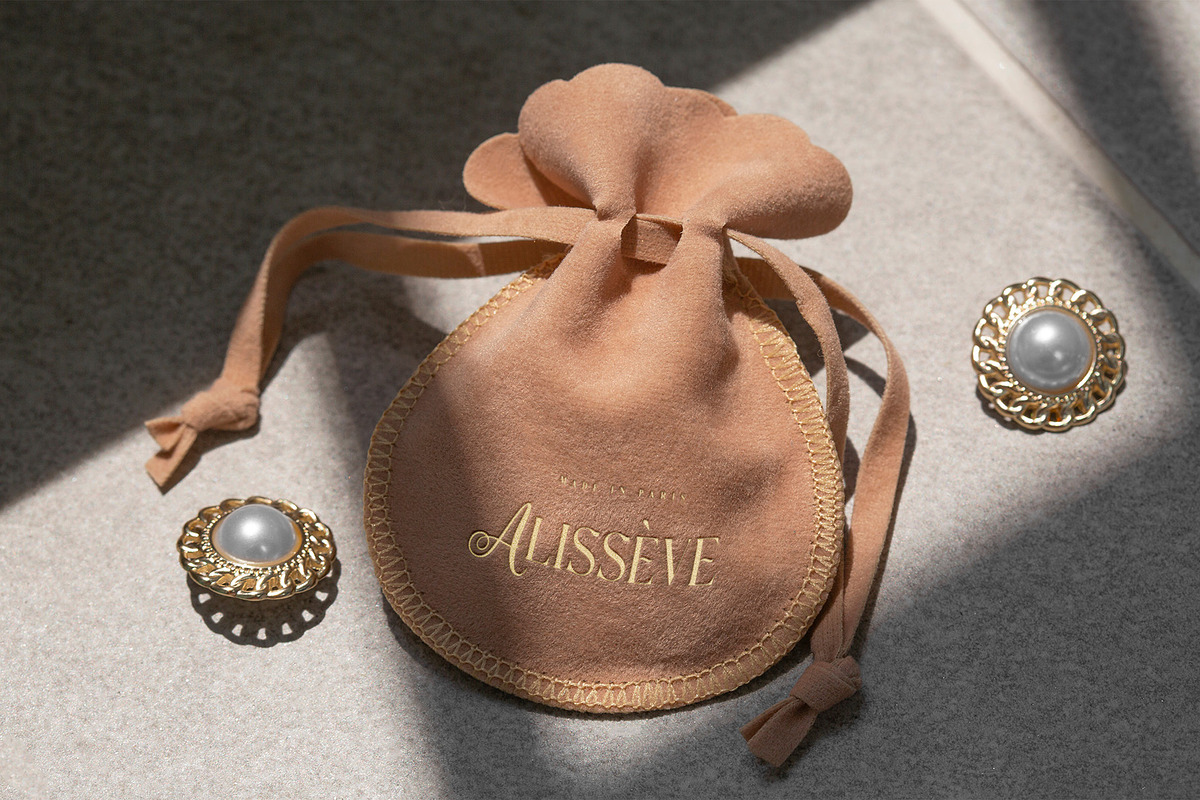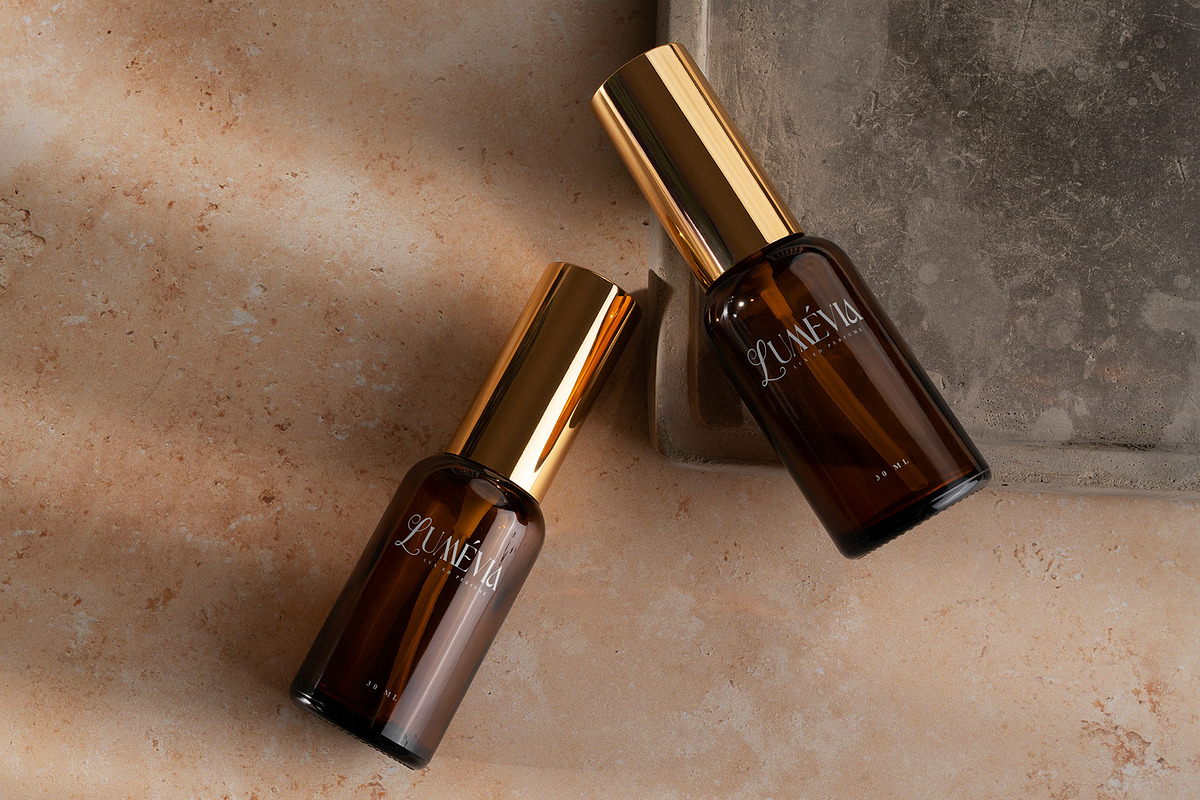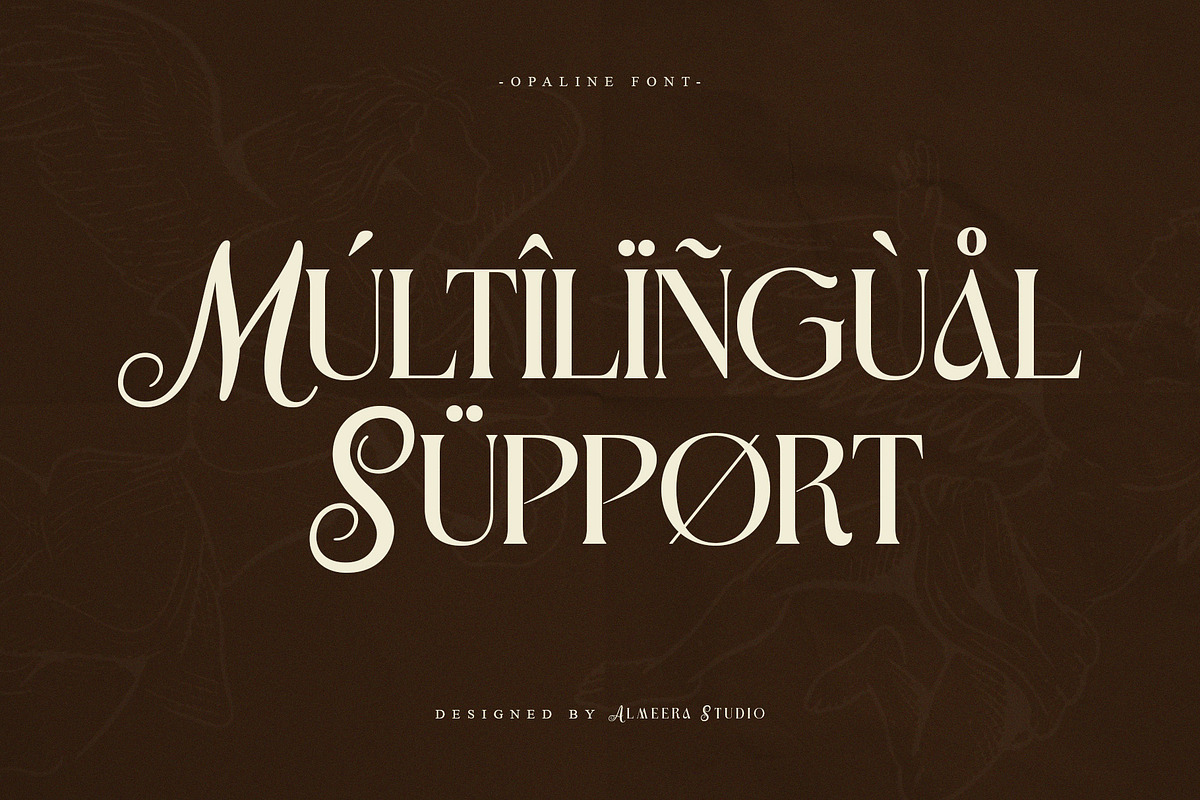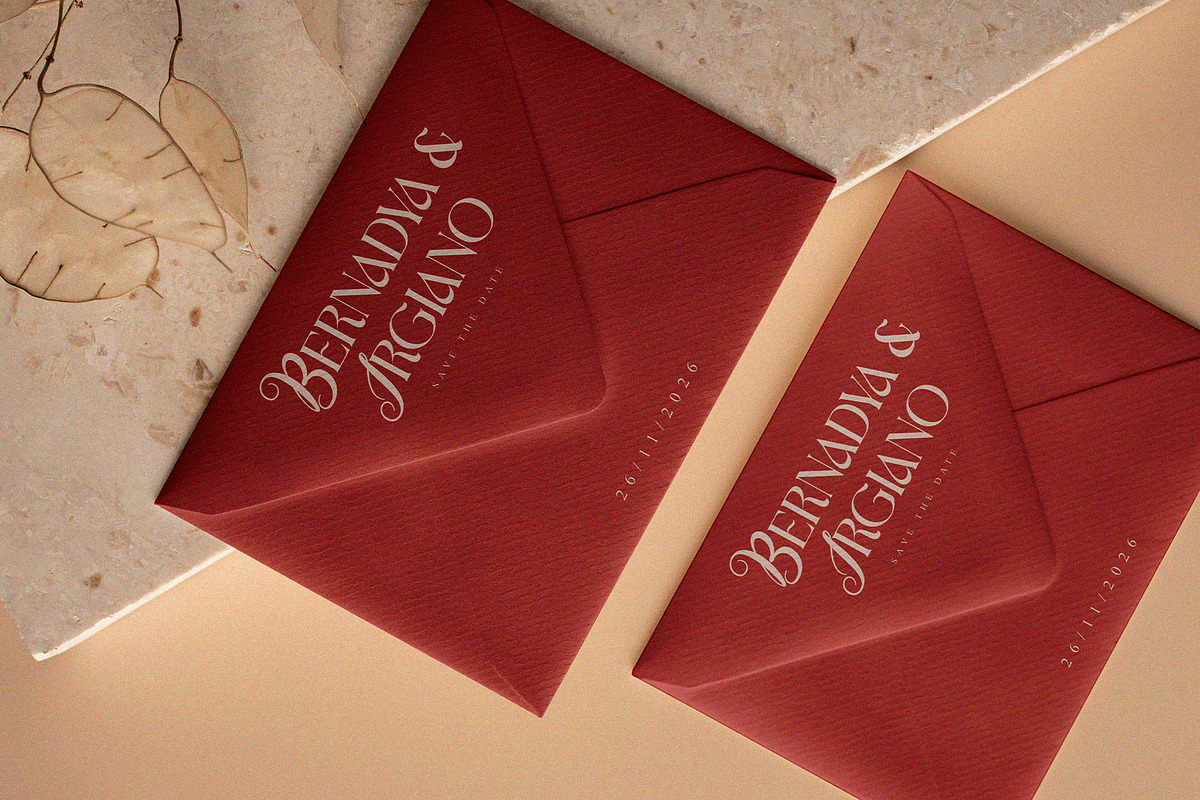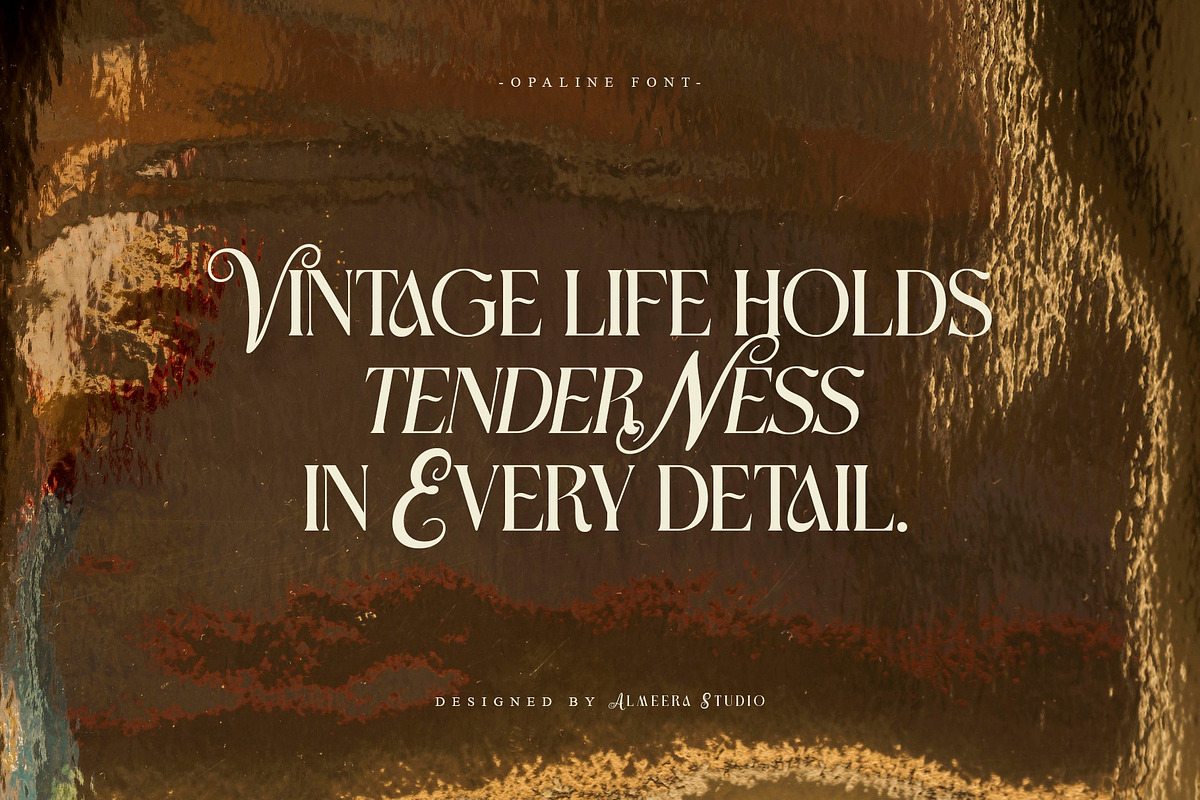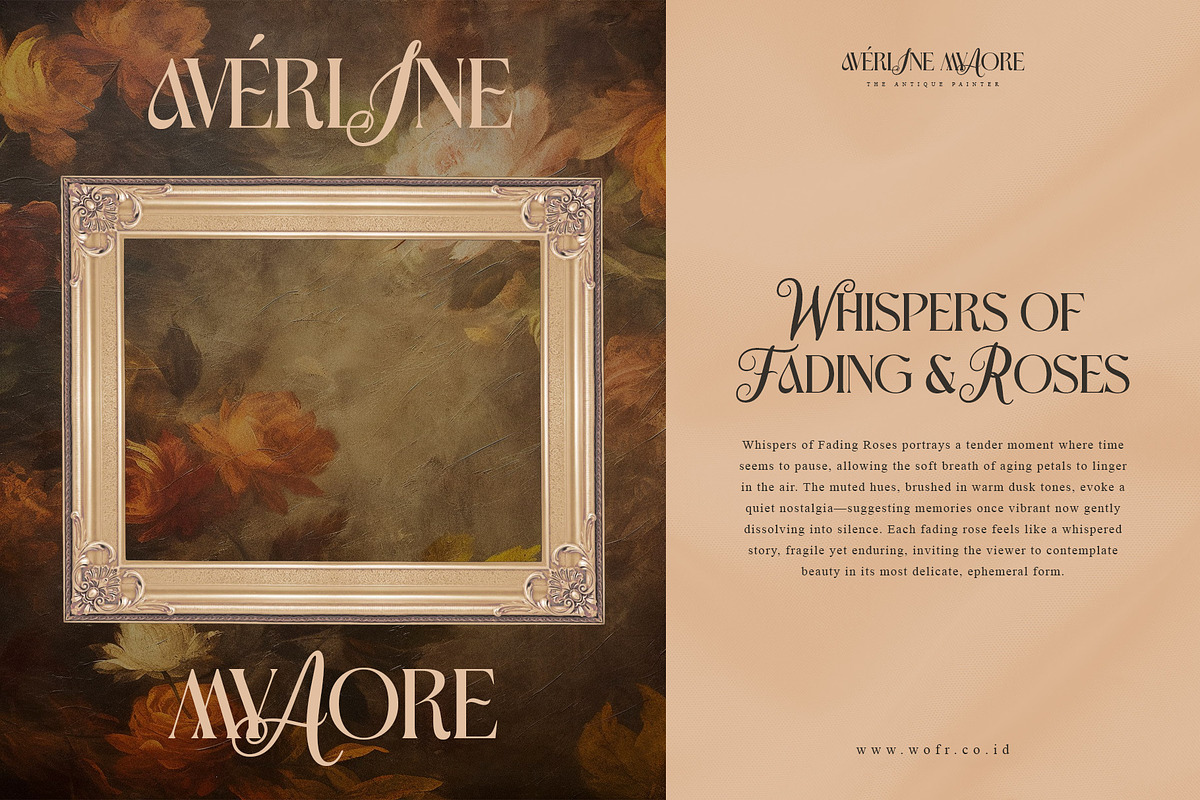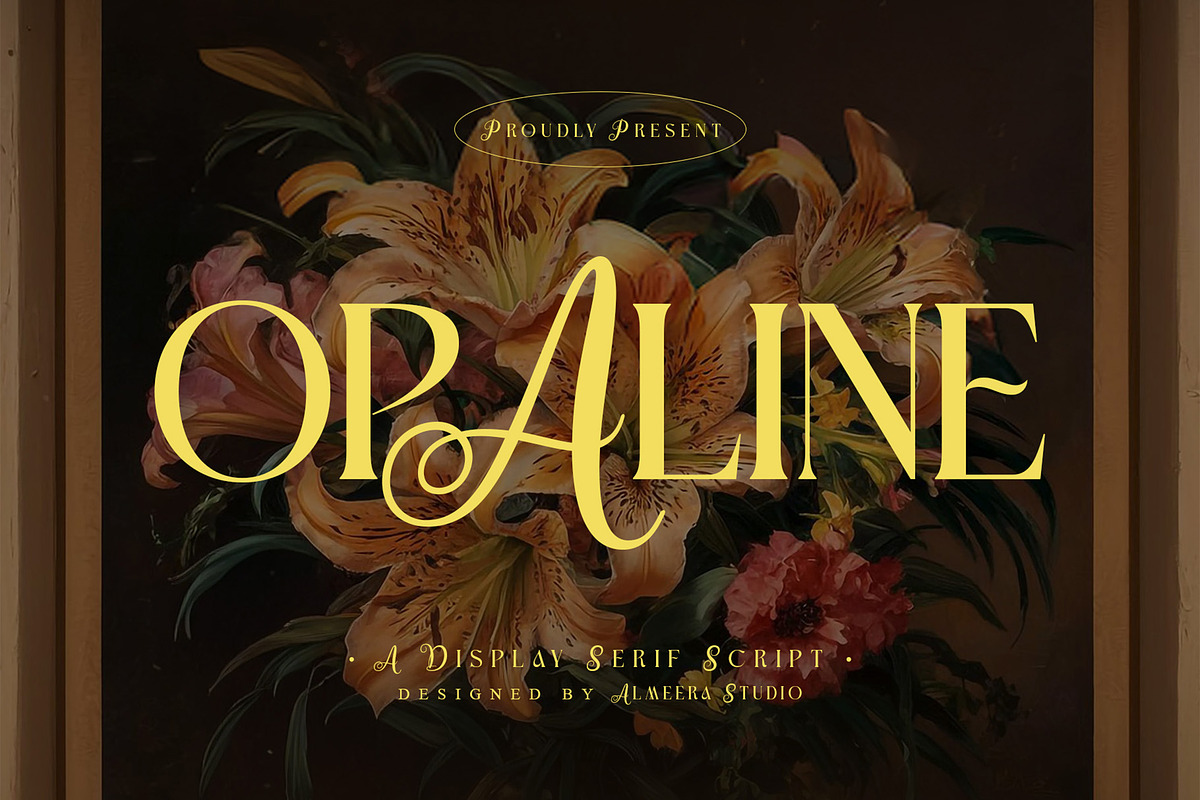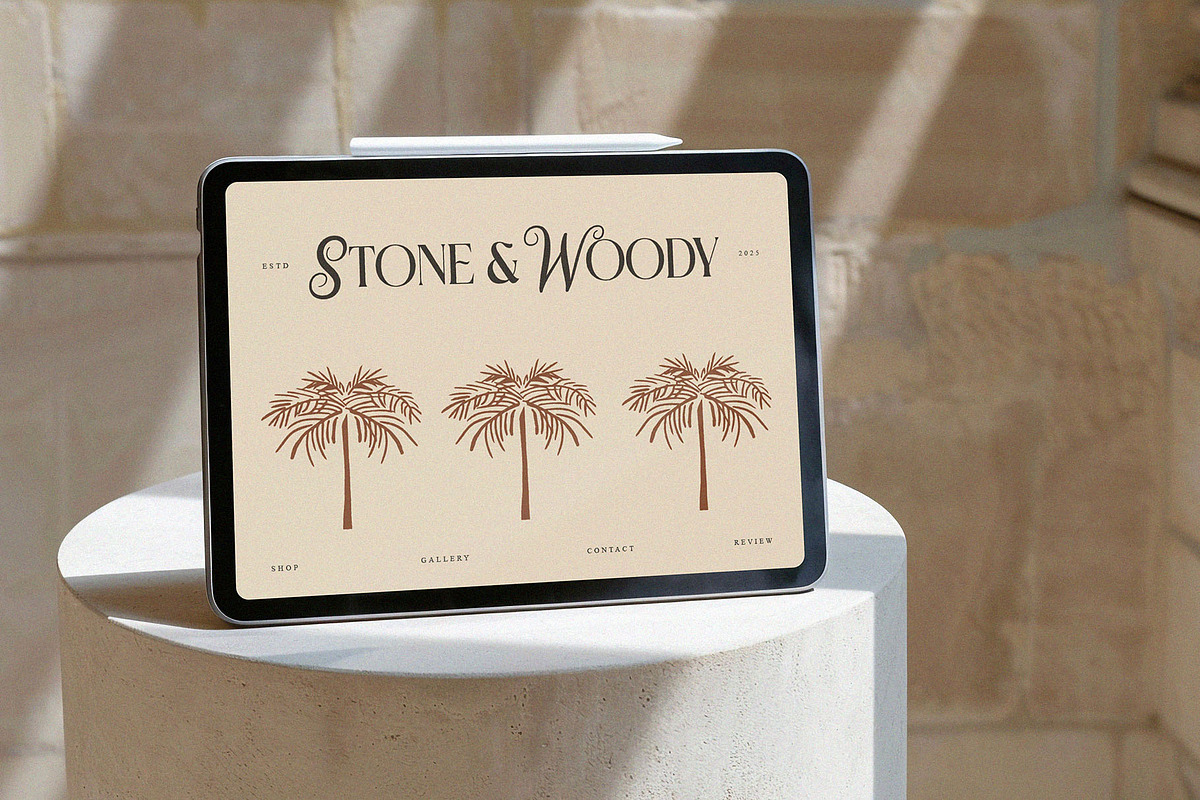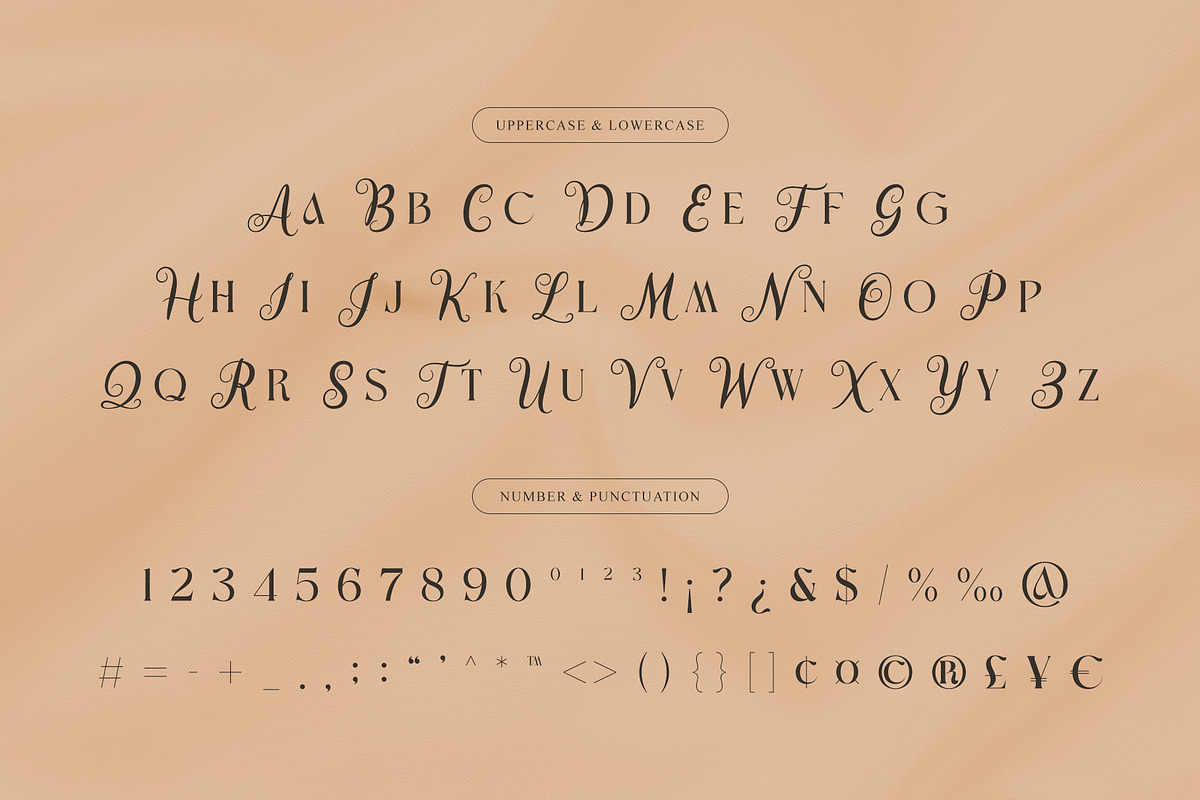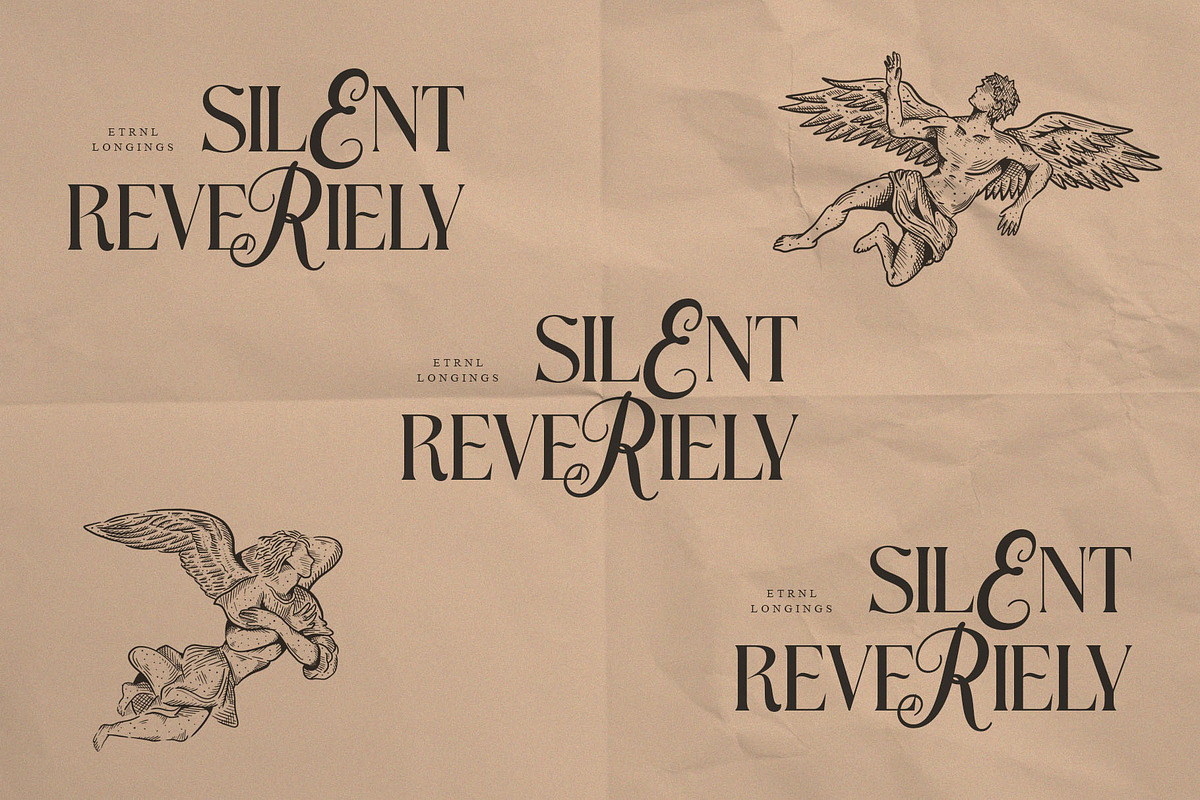
Opaline – Display Serif Script
Opaline is a Display Serif Script that merges classic serif elegance with refined script flourishes. Designed with delicate details, graceful contrast, and soft ornamental touches, Opaline becomes the perfect choice for luxury branding, premium packaging, artistic invitations, editorial titles, and any project that seeks a sophisticated and timeless aesthetic.